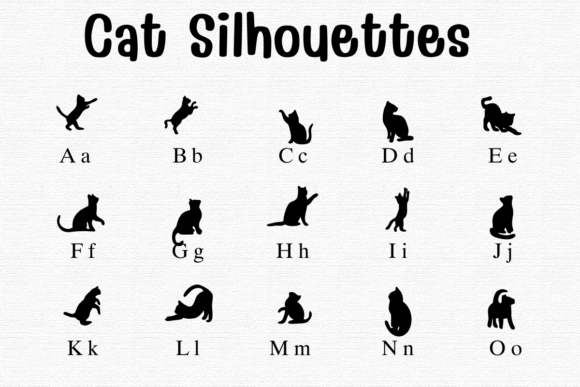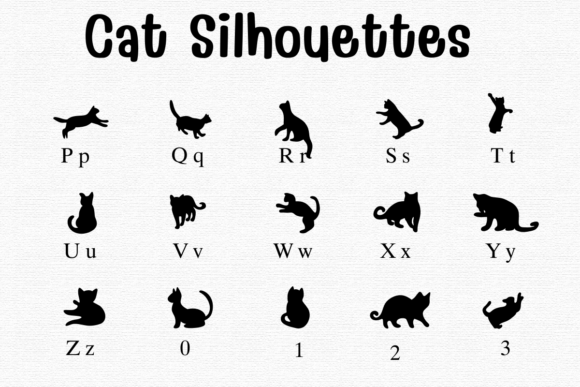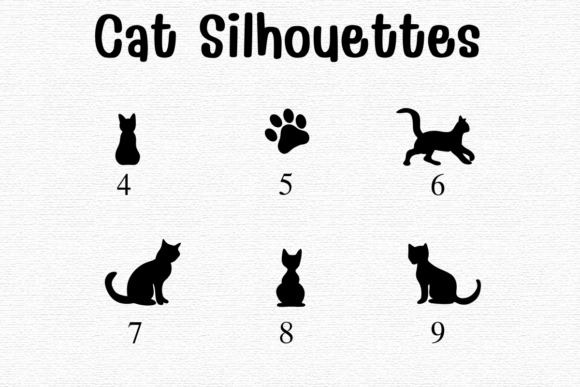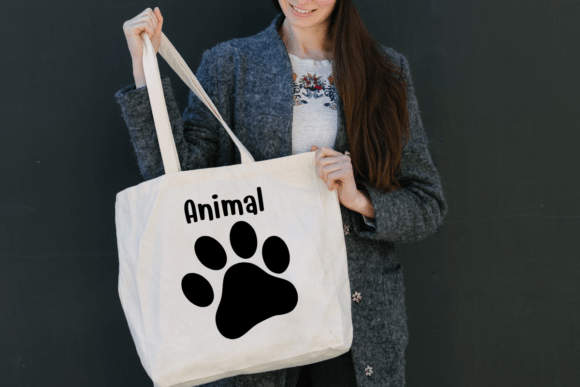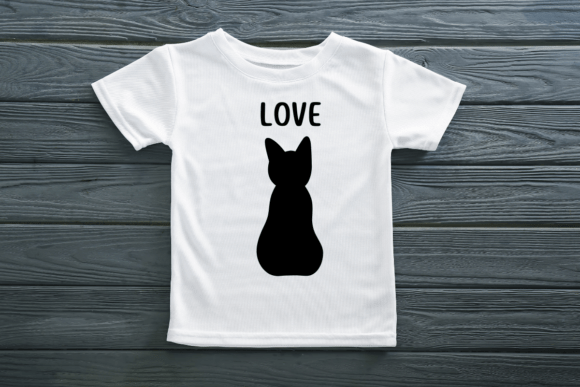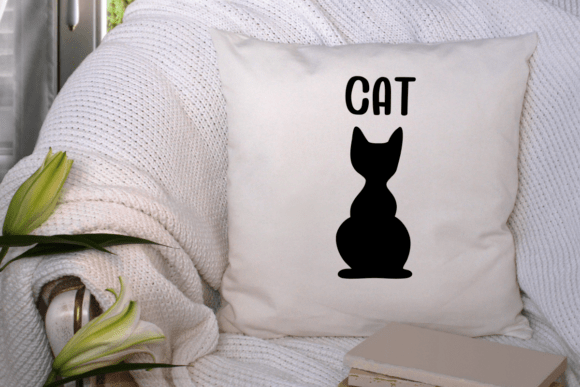
The Purrfect Font: A Deep Dive into Cat Silhouettes
I’ll never forget the time I was working on a cat-themed t-shirt design project, and I just couldn’t find the right font to bring my feline friends to life. My client wanted something playful, yet elegant, and I was determined to deliver. That’s when I stumbled upon Cat Silhouettes, a charming dingbat font that has since become a staple in my design toolkit.
As a designer, crafty creative, or hobbyist, you’re probably always on the lookout for unique and versatile fonts that can elevate your projects. In this article, we’ll explore the wonderful world of Cat Silhouettes, a font that’s sure to delight cat lovers and designers alike.
- ✨ Playful yet elegant design: Each glyph in Cat Silhouettes is meticulously crafted to capture a different feline mood, from curious kittens to stretching cats.
- ✅ Clean silhouette style: The font’s clean and simple design makes it perfect for a wide range of applications, from pet branding to greeting cards.
- 💕 Perfect for cat lovers: With its adorable cat poses, Cat Silhouettes is sure to delight anyone who loves felines.
While Cat Silhouettes is an amazing font, there are a few things to keep in mind:
- ⚠️ Limited character set: As a dingbat font, Cat Silhouettes doesn’t have a traditional character set, so you won’t find letters or numbers. However, the glyphs are plentiful and varied!
- 🤔 Requires some exploration: With so many glyphs to choose from, it may take some time to get familiar with the font and find the perfect cat pose for your project.
The Designer Inspiration Behind Cat Silhouettes
According to the font’s creator, the inspiration for Cat Silhouettes came from a love of felines and a passion for illustration. The designer wanted to create a font that would bring a touch of whimsy and playfulness to any design, while still being elegant and sophisticated.
| Font Name | Cat Silhouettes Font |
| Author | Sontaya |
Q: What is Cat Silhouettes?
A: Cat Silhouettes is a charming dingbat font featuring playful cat poses in clean silhouette style.
Q: What can I use Cat Silhouettes for?
A: Cat Silhouettes is perfect for pet branding, t-shirt designs, greeting cards, stickers, and more.
Q: Is Cat Silhouettes easy to use?
A: Yes! While it may take some time to get familiar with the font, Cat Silhouettes is relatively easy to use, even for beginners.